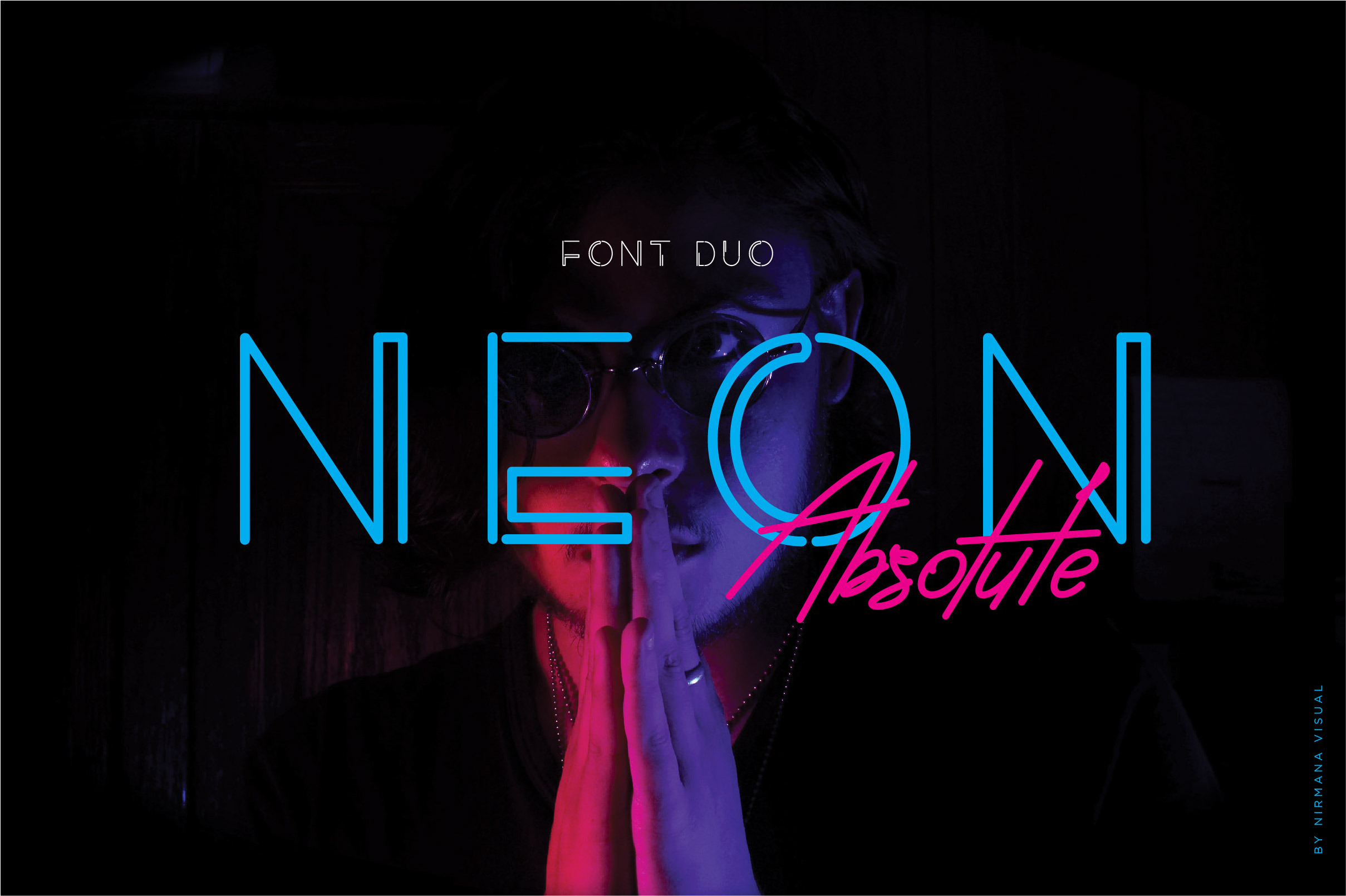
Neon Absolute ! a classy, contemporary pair of script and sans fonts, inspired by 1980’s and neon lights. Neon Absolute offers beautiful typographic harmony for a diversity of design projects, including logos & branding, social media posts, advertisements & product designs.
Multilingual support - spread your message globallyAÀÁÂÃÄÅCÇDÐEÈÉÊËIÌÍÎÏNÑOØÒÓÔÕÖUÙÜÚÛWYÝŸỲŸÆŒßÞþ